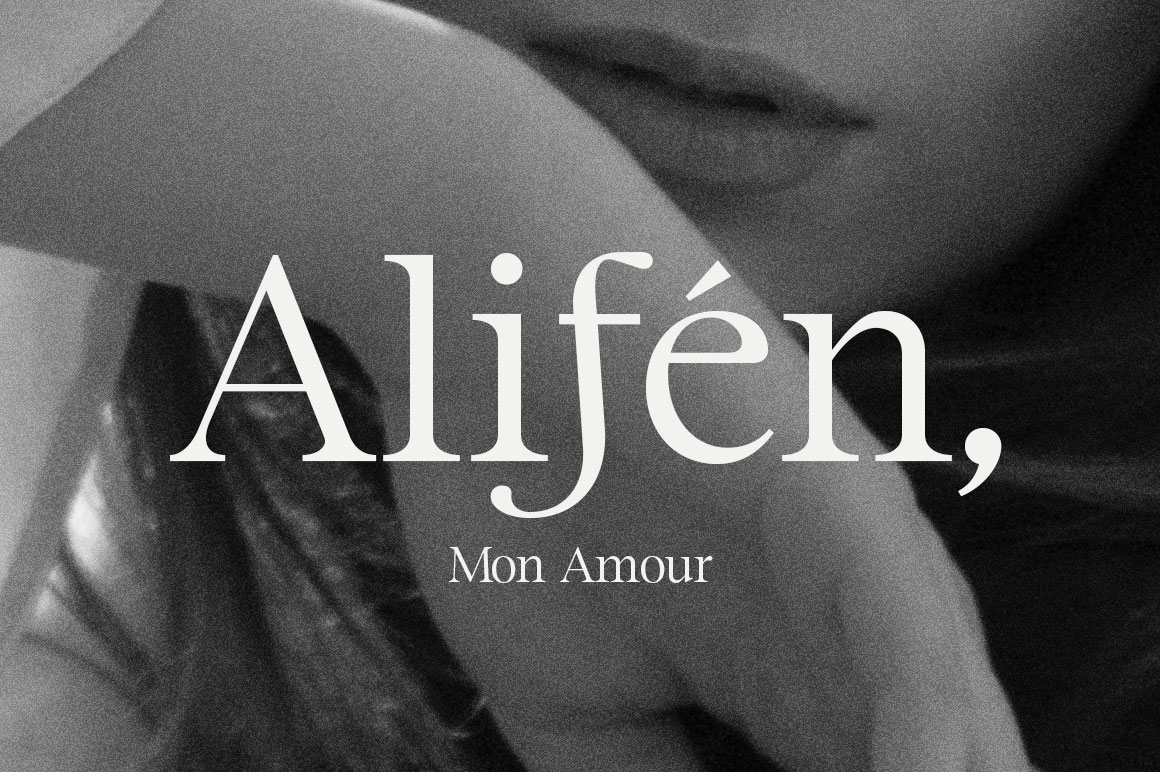
Maister
Font Family by Dora Typefoundry
Maister is a contemporary look serif typeface with sharp and dynamic strokes, strong contrasts that are subtle. Giving traditional serif design elements a modern feel, this is a graceful and confident set of timeless simple, easy-to-read typefaces that can easily become a staple in your font library perfect for branding, logos, invitations, magazines, product packaging, and more.
Features:
• All Caps Font with different uppercase and lowercase
• Number & Symbol
• Supported Languages
• Alternates and Ligatures